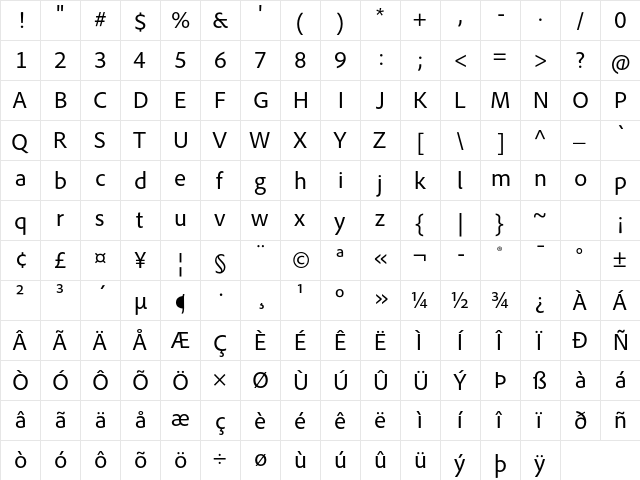
Adobe Clean Regular
| Designer | Robert Slimbach |
Design Context for Adobe Clean Typeface
Adobe Clean offers clean, dependable letterforms without strong stylistic allegiance, making it a practical choice for designers who need flexibility.
Pro Tip: Use Adobe Clean in both headline and body roles to test its range before committing to a single application.